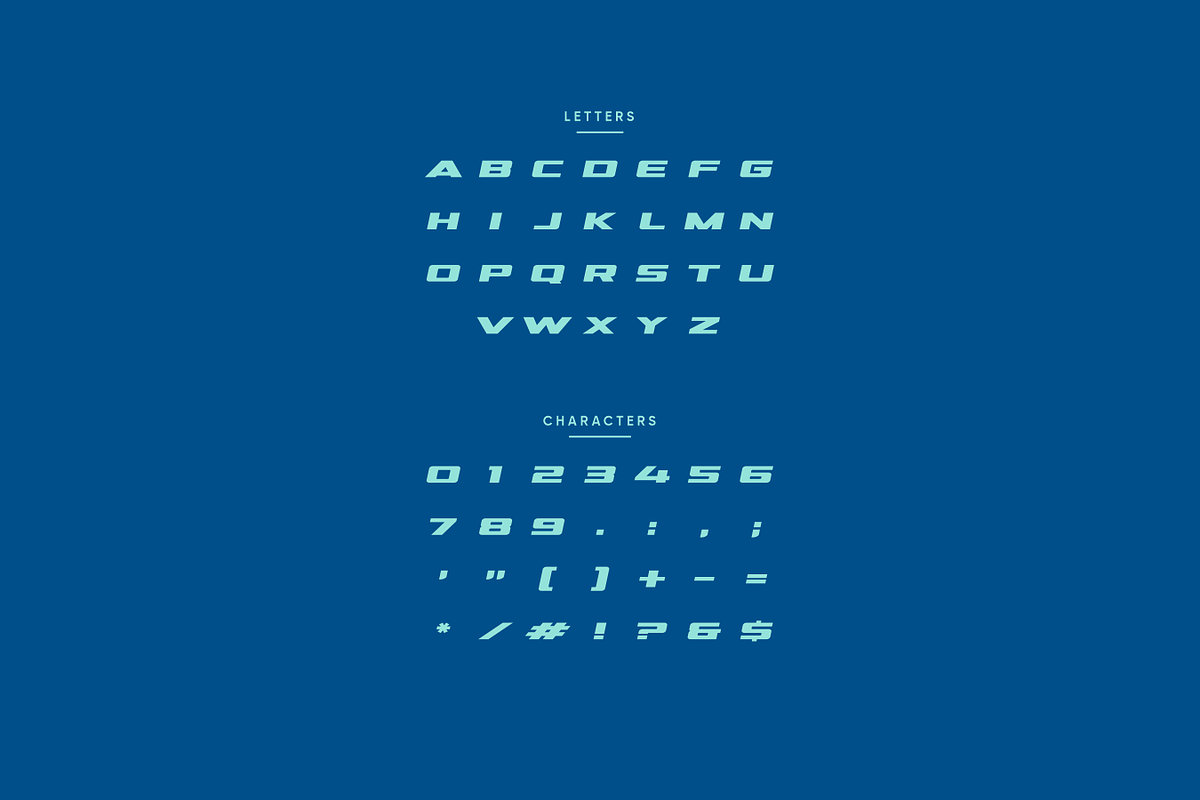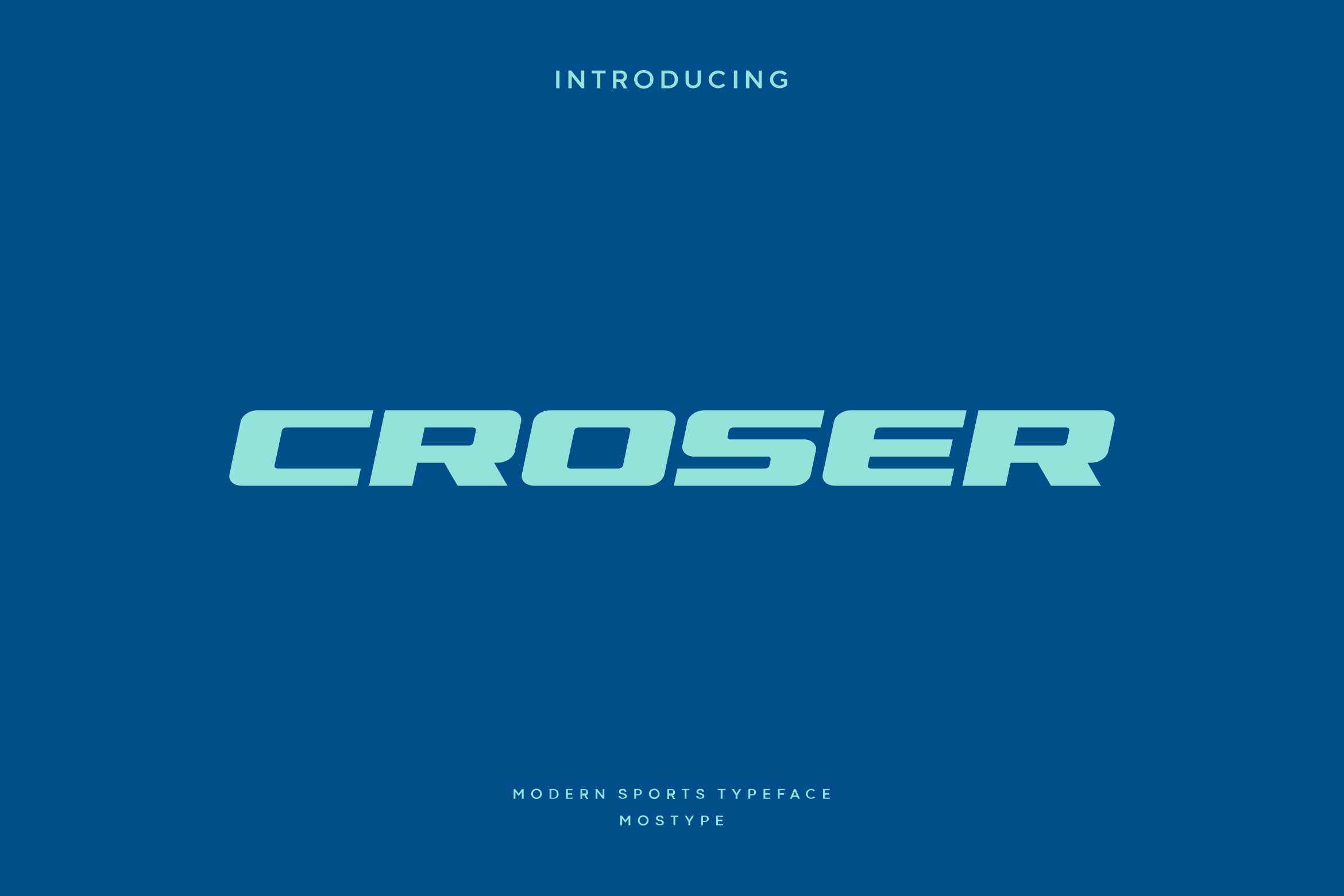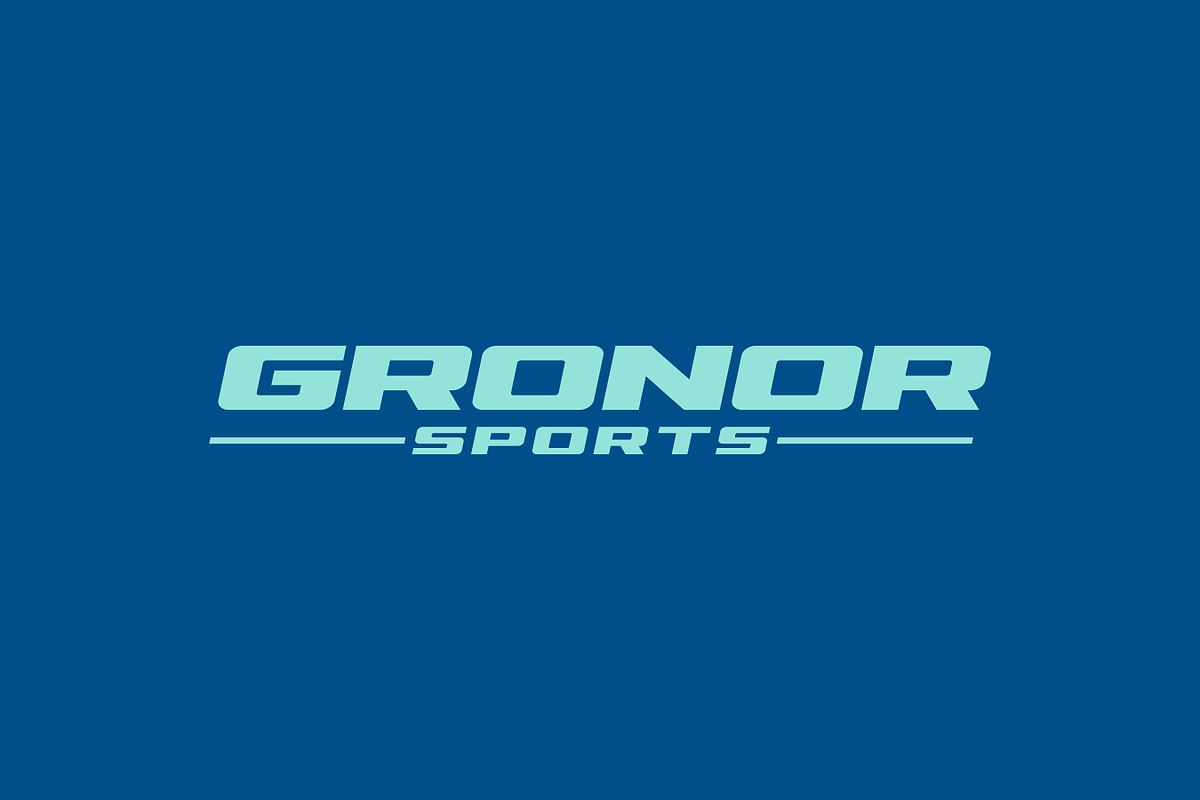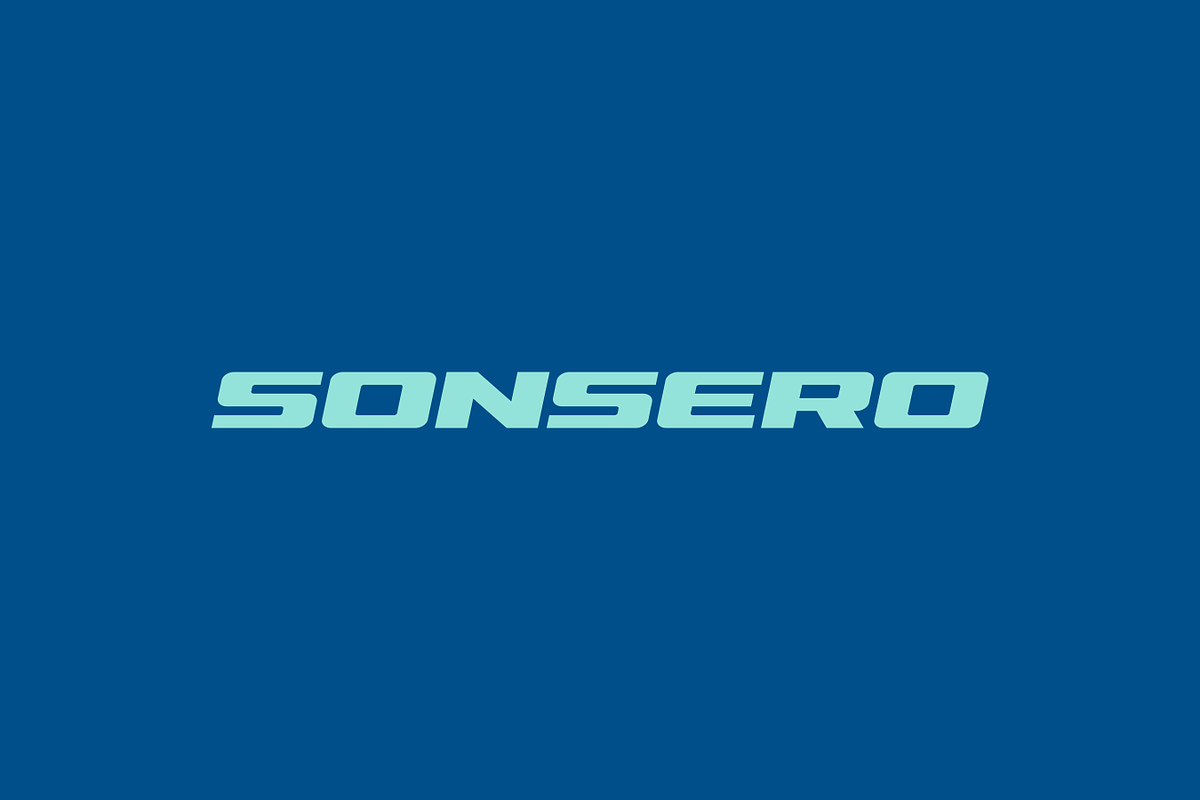
Croser - Modern Sport Typeface
Croser is a modern display font built specifically for sports branding, headline, and more prominent typography needs. This font comes with a new and fresh all-caps style, it will make your design more memorable, it’s perfect for adding this font to sports, tech, action and future themes. Croser was created for bold action style and a modern feel, so enjoy creating any project that will showcase your main ideas.